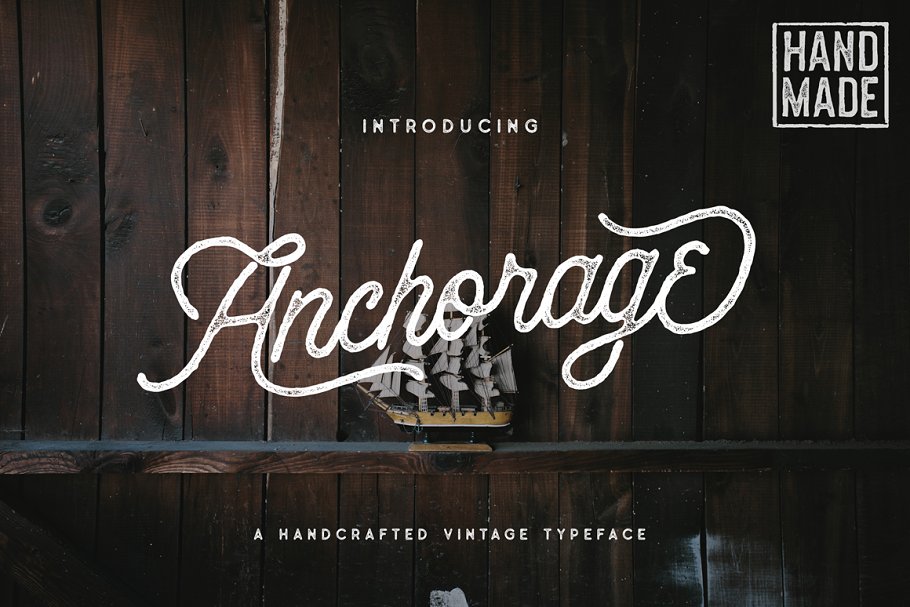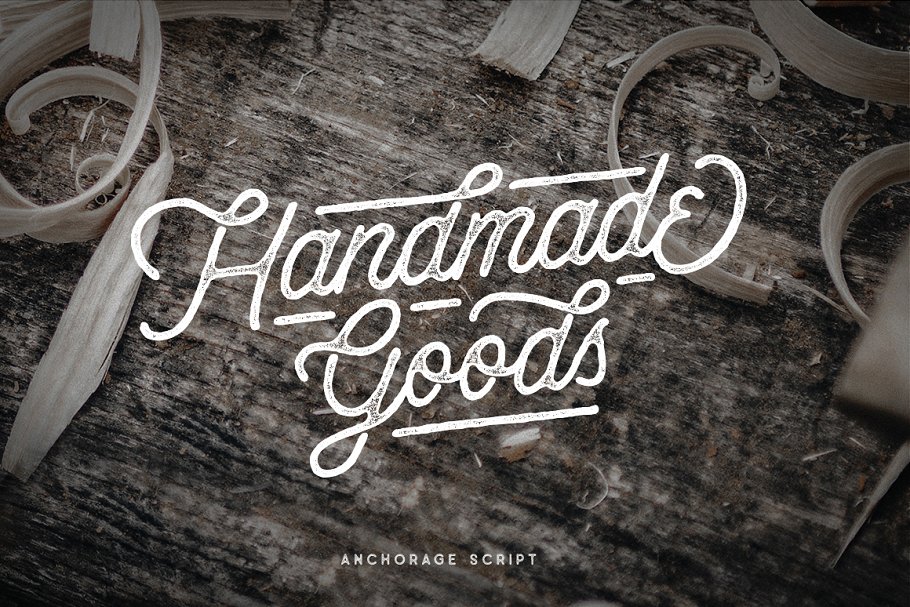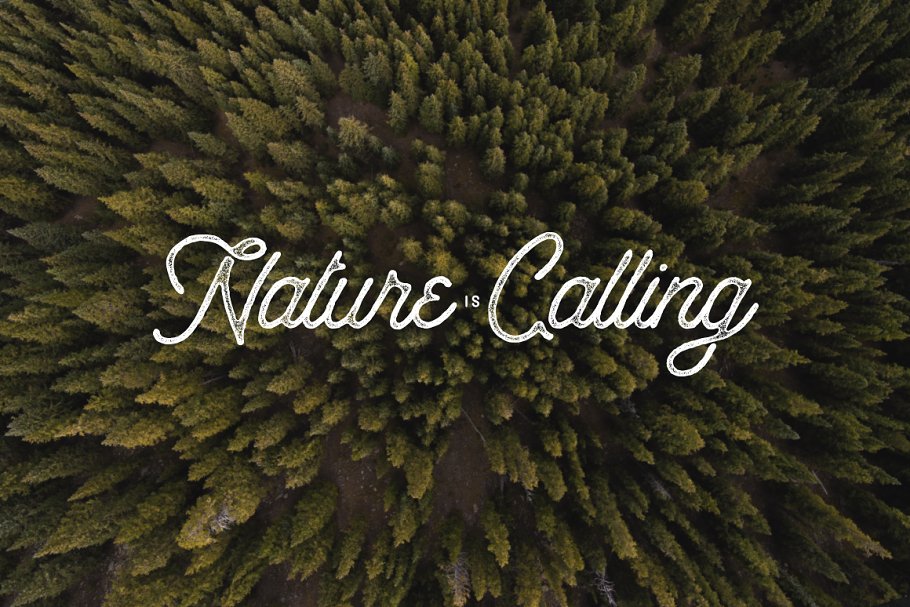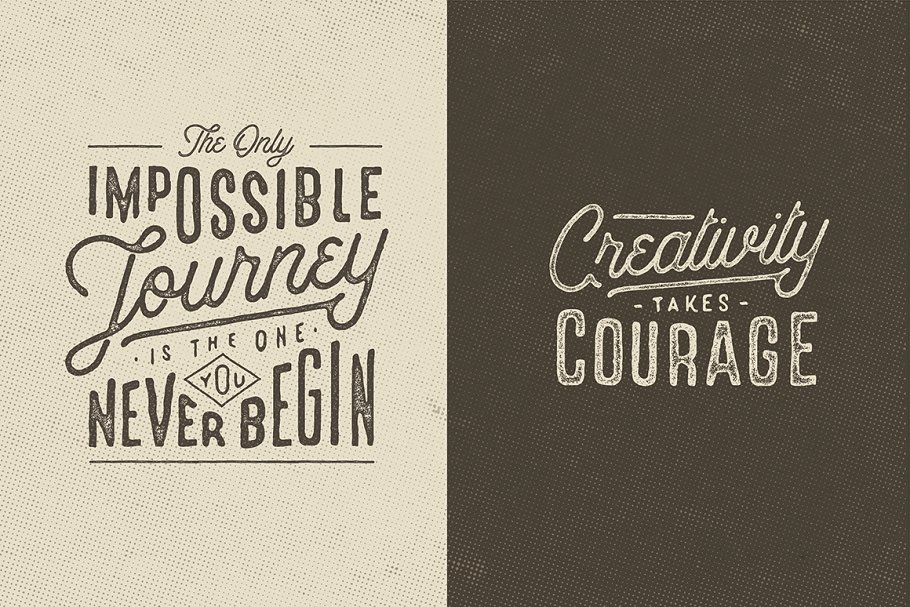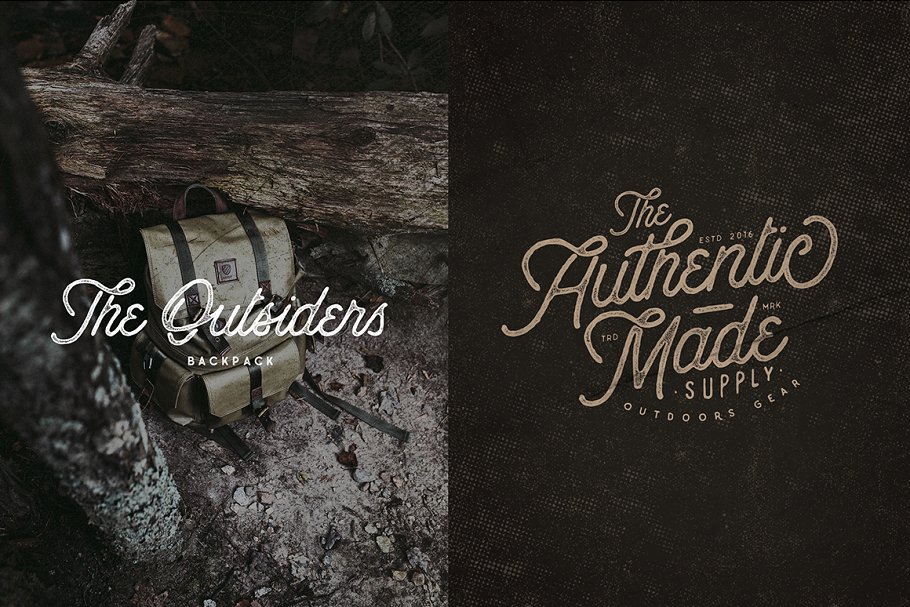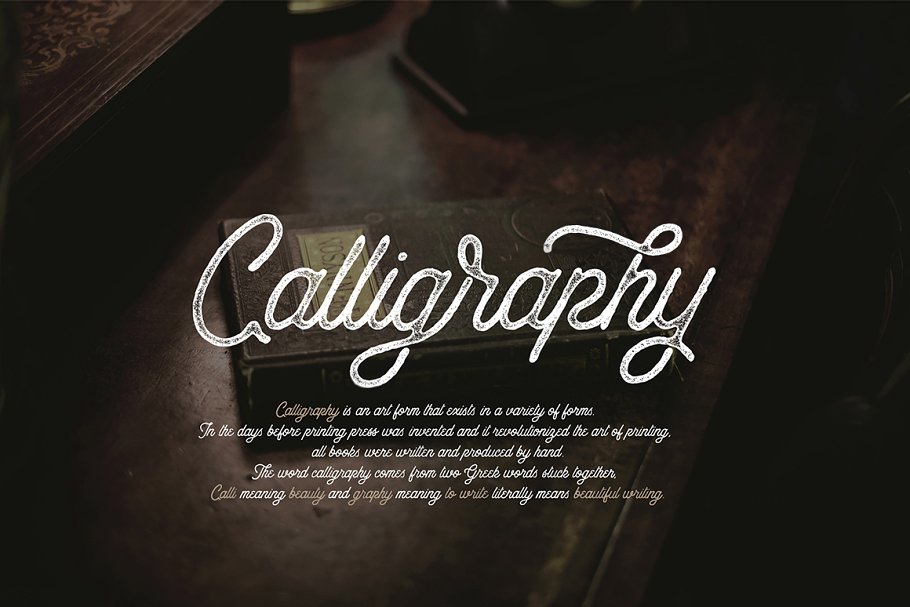
About the Anchorage Script Typeface Font
IntroducingAnchorage Script Typeface! with 2 Styles and Simple Swash Anchorage Script Typeface is a handcrafted script vintage font, This script typeface gives a feel of vintage, classic, old, handmade looked like because the process of the font itself through scanning process and carved digitally, the texture itself is well crafted and added carefully in each character
Come with many alternates character, titling, terminal forms, ligature, and swash, so that you have more options, I think this font is perfect for people looking for vintage aesthetic, Come with 2 font styles, Anchorage Script Rough and Anchorage Script Press